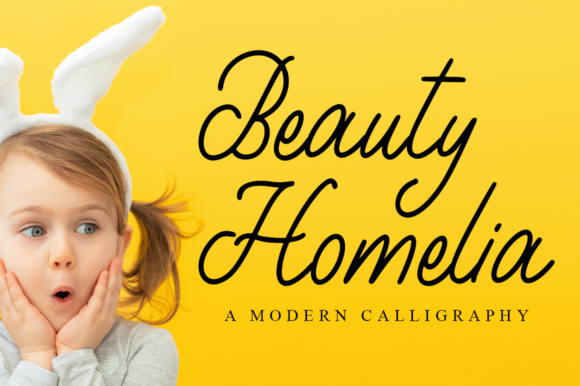
The Perfect Blend of Elegance and Charm: Beauty Homelia Font
As a designer, there’s nothing quite like the thrill of creating something beautiful. You’ve spent hours brainstorming ideas, pouring over inspiration, and perfecting the details. And then, it happens – the moment when everything comes together, and your design is transformed into a masterpiece. For many of us, this feeling is what drives us to keep pushing the boundaries of creativity.
One of the key elements that can elevate a design from good to great is the right font. Enter Beauty Homelia Font, a stunning script font that exudes elegance and charm. With its PUA encoded features, designers can easily access all the glyphs and swashes needed to add a customized touch to any design project. Whether it’s a wedding invitation, thank you card, or business logo, Beauty Homelia Font is the perfect choice for adding a touch of sophistication and whimsy.
Beauty Homelia Font Key Features
- Font Family: Beauty Homelia Font offers a range of font styles, including Regular, Bold, Italic, and Bold Italic.
- Unique Characteristics: The font features a unique blend of traditional and modern elements, with intricate details and subtle flourishes.
Beauty Homelia Font Review
Overall, I’d say the Beauty Homelia Font is a nice addition to any designer’s toolkit. Here’s what I like about it:
- ✨ Elegant and refined aesthetic, perfect for luxury brands or high-end designs.
- ✨ Great for use in headings, where its refined lines and subtle flair can really make a statement.
- ✨ It’s also quite versatile, working well in both print and digital applications.
- ⚠️ The font can feel a bit too ornate for some designs, and may not be suitable for projects that require a more minimalist approach.
- ⚠️ Some characters may not display properly in certain fonts or formatting systems, which can be frustrating.
Overall, I think the Beauty Homelia Font is a solid choice for designers who need a refined, elegant font. While it may not be the best fit for every project, it’s definitely worth considering for those high-end designs where a bit of sophistication is required.
To get the most out of the Beauty Homelia font, use it for creative and elegant designs, such as invitations, menus, and product labels. Experiment with different font sizes, colors, and styles to create visually appealing designs.
The Beauty Homelia font is commonly used for:
– Luxury product labels and packaging
– Fashion and beauty branding
– Fine dining menus and restaurant signage
Playfair Display is a luxurious and elegant serif font. It is ideal for use in high-end branding, wedding invitations, and luxury products. This font is more ornate and decorative compared to Beauty Homelia Font, making it perfect for creating a sense of sophistication and glamour.
Comparison: While Beauty Homelia Font is a clean and modern font, Playfair Display is more ornate and traditional. Beauty Homelia Font is more versatile and can be used in a variety of contexts, whereas Playfair Display is best suited for formal and high-end applications.
Great Vibes is a modern and elegant script font. It is perfect for use in branding, advertising, and packaging design. This font is more playful and creative compared to Beauty Homelia Font, making it ideal for creating a sense of fun and energy.
Comparison: While Beauty Homelia Font is a clean and modern sans-serif font, Great Vibes is a more decorative and expressive script font. Beauty Homelia Font is more versatile and can be used in a variety of contexts, whereas Great Vibes is best suited for applications where a more playful and creative feel is desired.